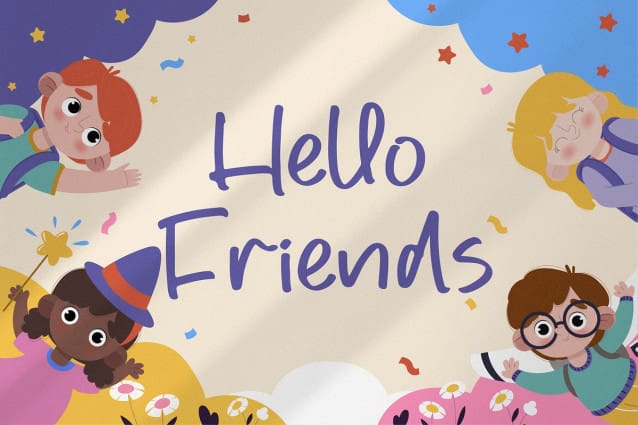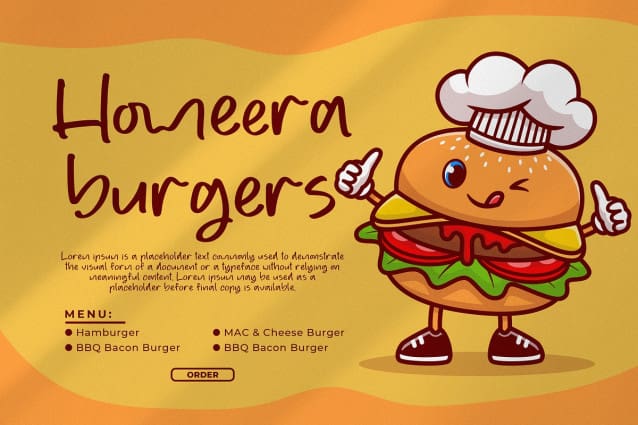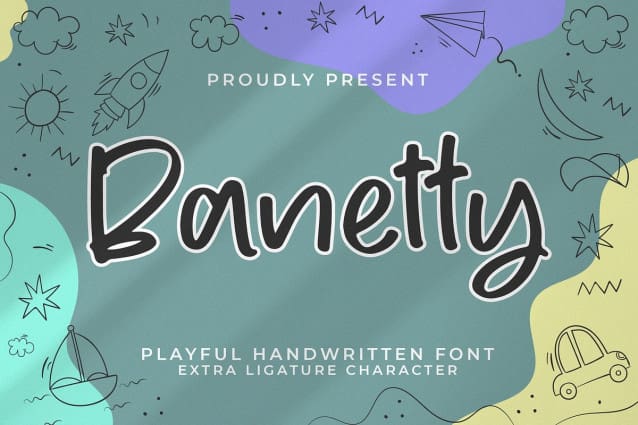
Banetty Playful Handwritten Font
Banetty Playful Handwritten Font, from Integritype Studio, is a premium Playful Handwritten Font, perfect for any project like: logos, branding projects, homewares designs, product packaging, mugs, quotes, posters, shopping bags, t-shirts, covers books, business cards, invitation cards, greeting cards, labels, photography, watermarks, special events and all your other luxury projects that require a premium taste.